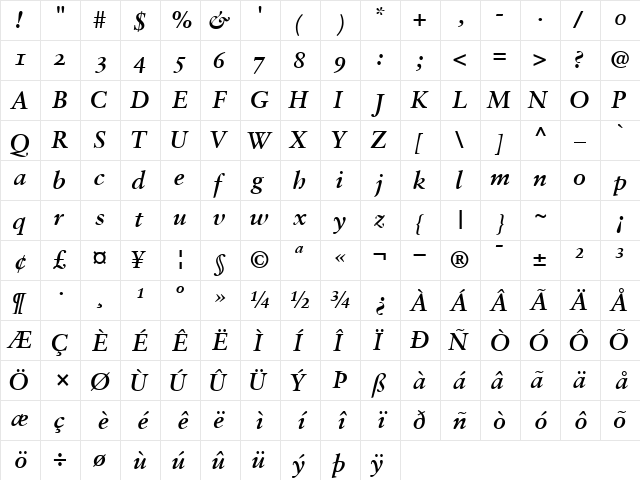
GaramondRetrospectiveOSSSK BoldItalic Font Preview
Design Context for GaramondRetrospectiveOSSSK Typeface
GaramondRetrospectiveOSSSK has the warm character of retro typography — evoking diners, record sleeves, and the golden age of print advertising. The slanted form adds forward momentum and visual energy. Its bold stroke weight gives it real presence on the page.
Font Pairing: Combine GaramondRetrospectiveOSSSK with a simple slab or neutral sans — period-accurate companions reinforce the vintage feel without competing for attention.
Pro Tip: Lean into GaramondRetrospectiveOSSSK's period character by pairing it with aged paper textures, muted colour palettes, and vintage illustration styles.